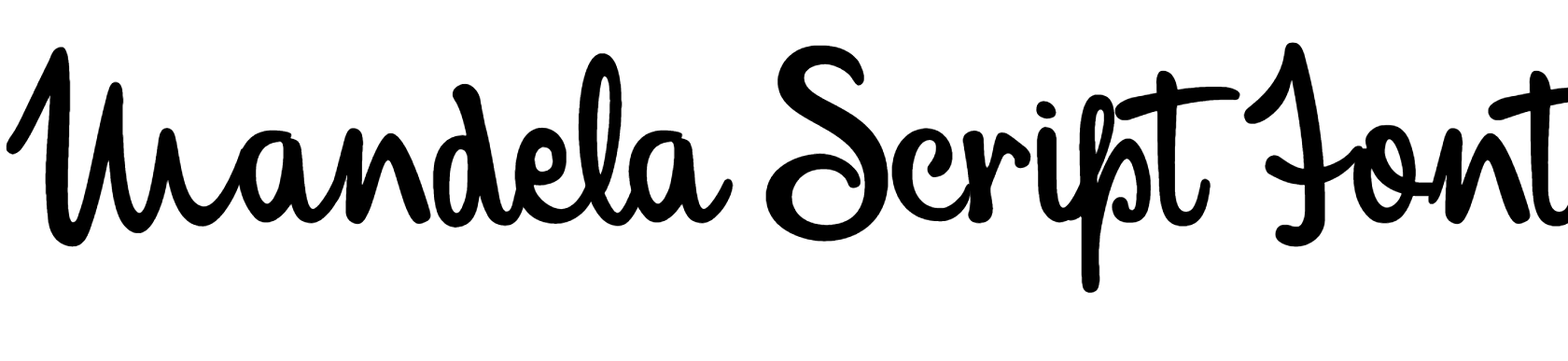
Mandela Script Font
Mandela Script
Mandela Script is a handwritten font designed by Billy Argel (2016). The letters have the small wobbles and personality of real handwriting, so your text feels warm instead of printed. It's a free download, and you can try it with your own text in the preview above first.
• Category: Handwritten font
• Characters: A–Z, a–z, 0–9 and basic punctuation
• Languages: English, Spanish, French, German, Portuguese and Italian
What You Can Type With Mandela Script
Mandela Script covers the full alphabet in upper and lowercase, plus all ten numbers, so you can set names, dates and prices without switching fonts. Common punctuation such as &, !, ? and @ is included as well. It also has the accented letters you need for Spanish, French, German, Portuguese and Italian.
Where Mandela Script Works Best
Think of Mandela Script for greeting cards, journal pages and friendly social posts. Its lowercase letters are small compared to the capitals, so set it a size or two bigger than usual. Set it a bit larger than you would a normal text font. Handwriting styles lose their charm once they get too small to read comfortably.
Who designed Mandela Script font?
Does Mandela Script support accented letters?
Yes. Mandela Script includes the accented letters needed for Spanish, French, German, Portuguese and Italian, so it works for more than just English.